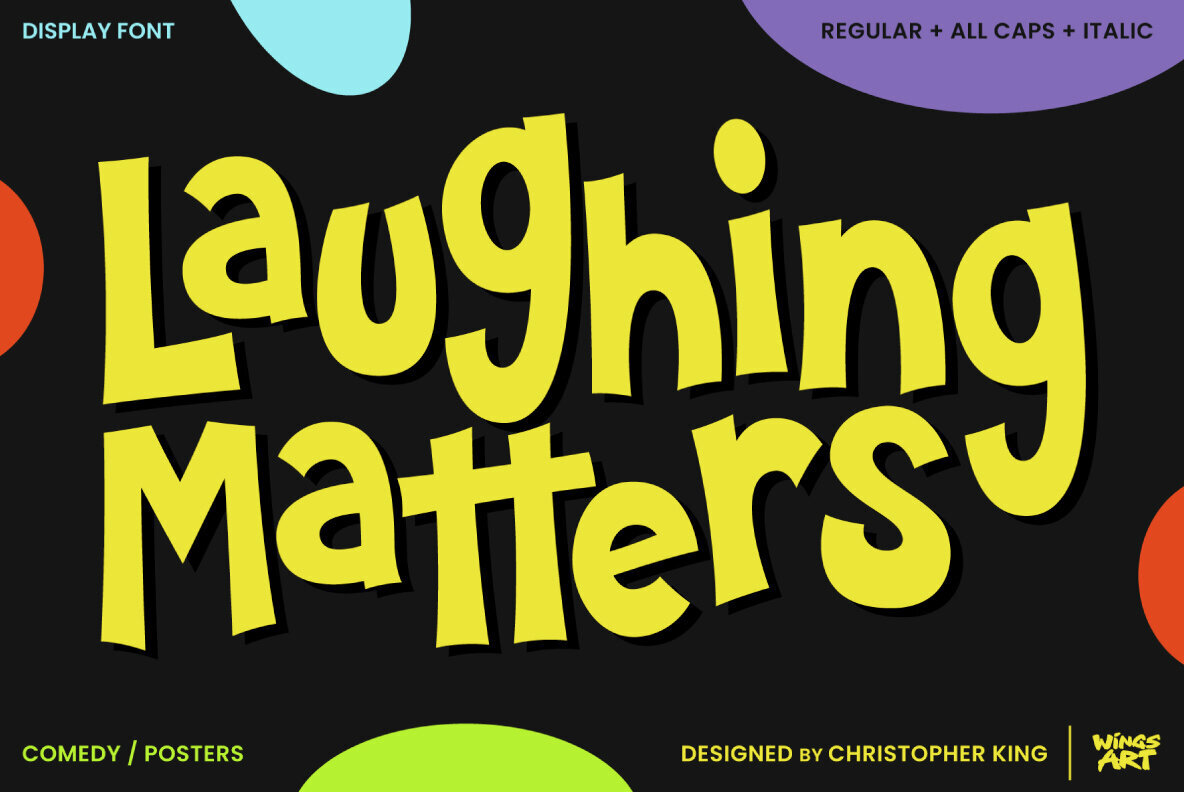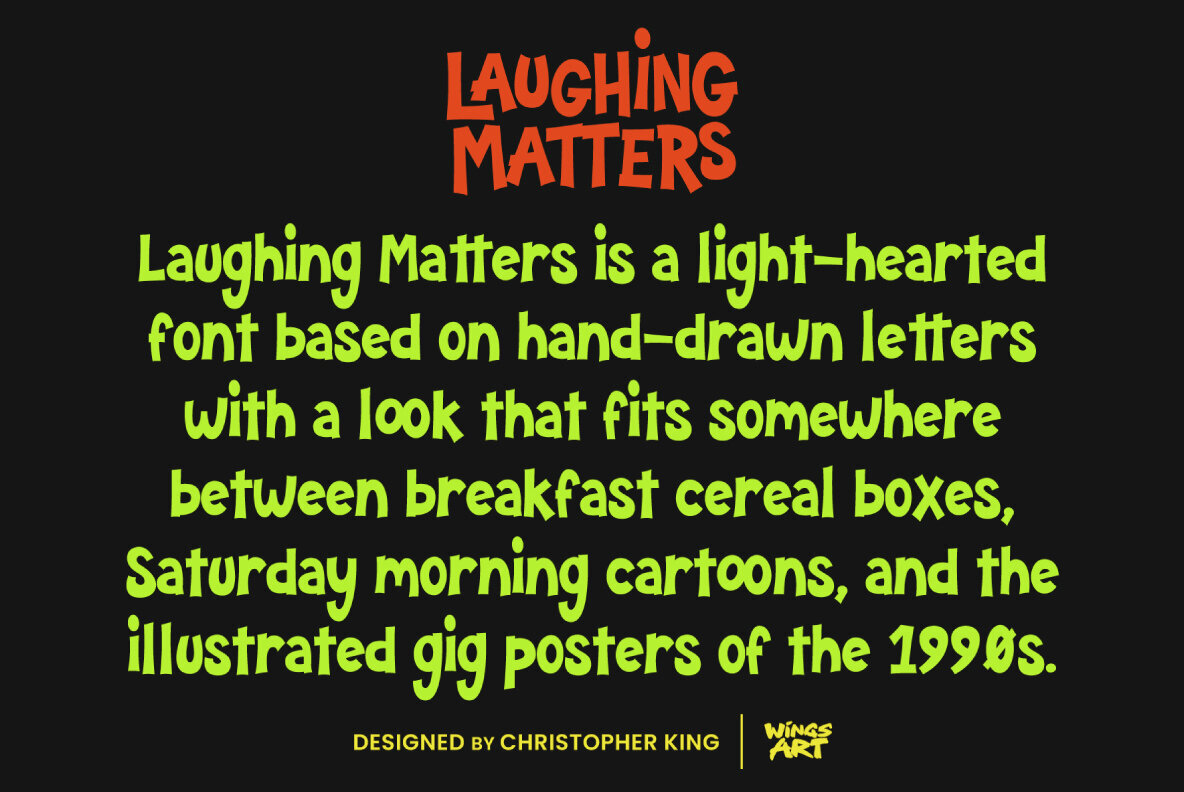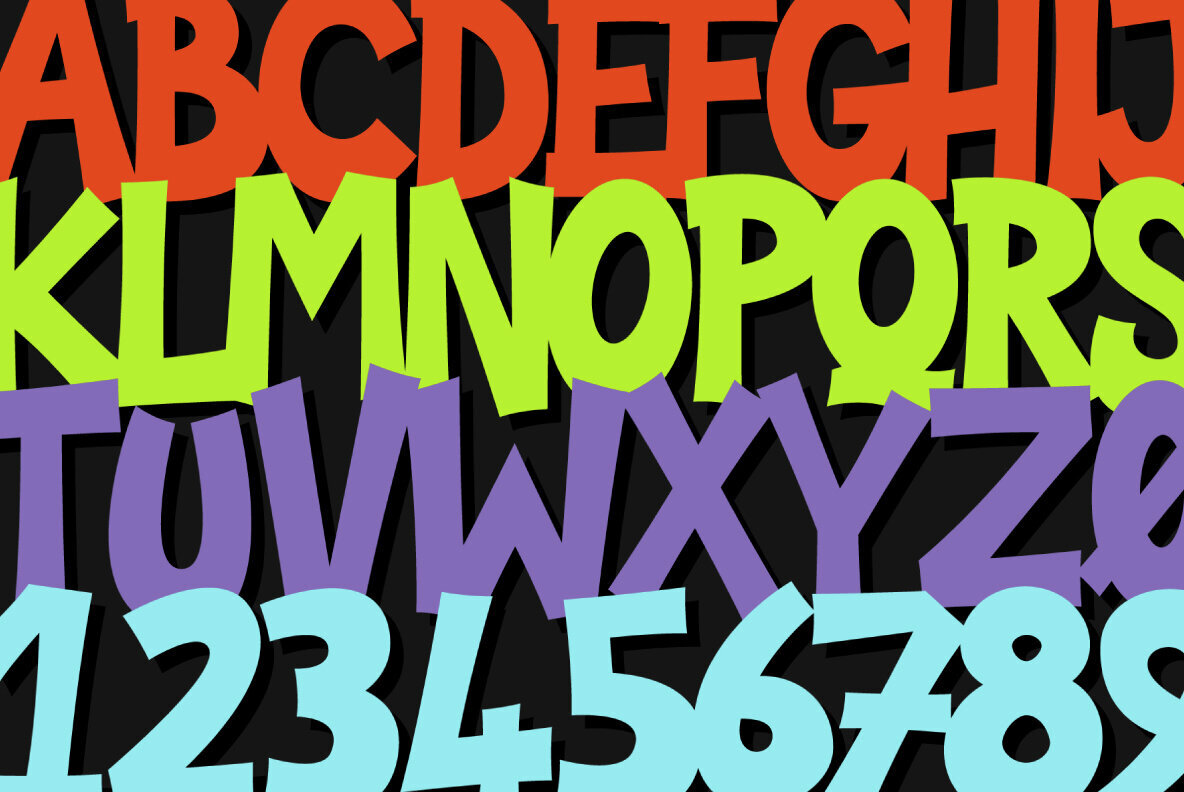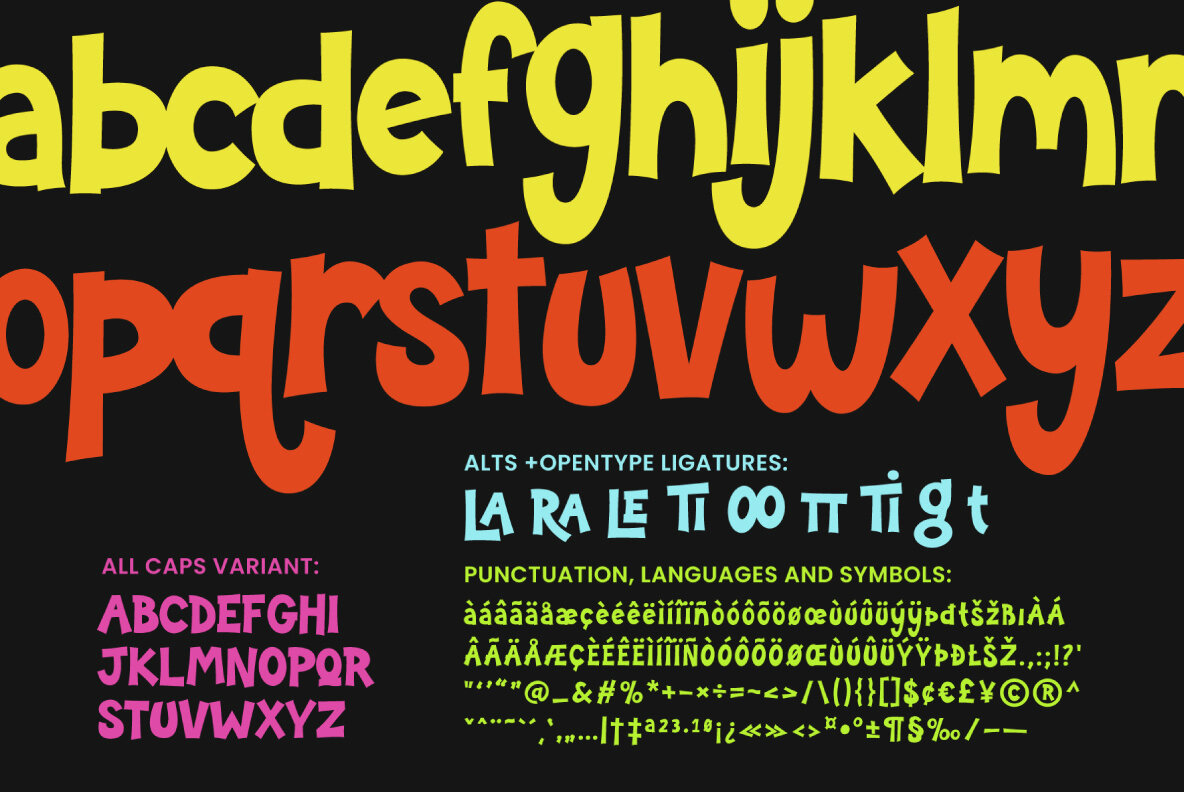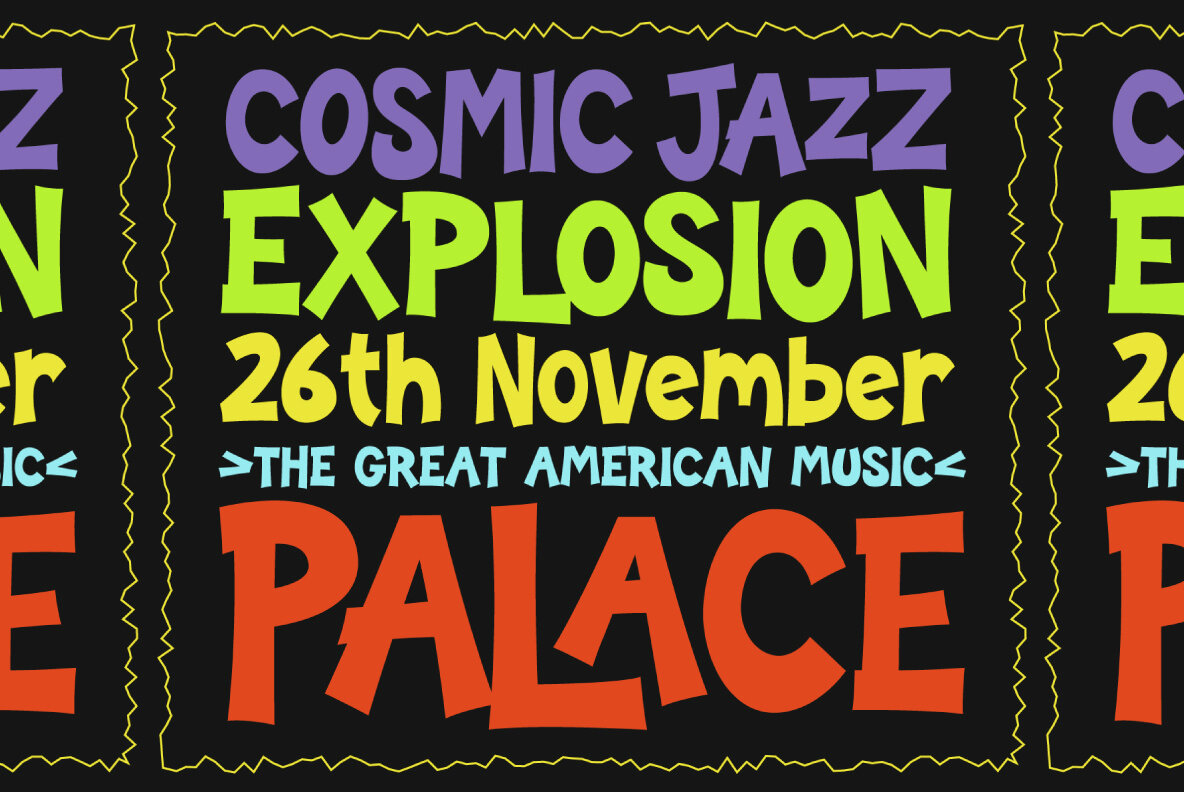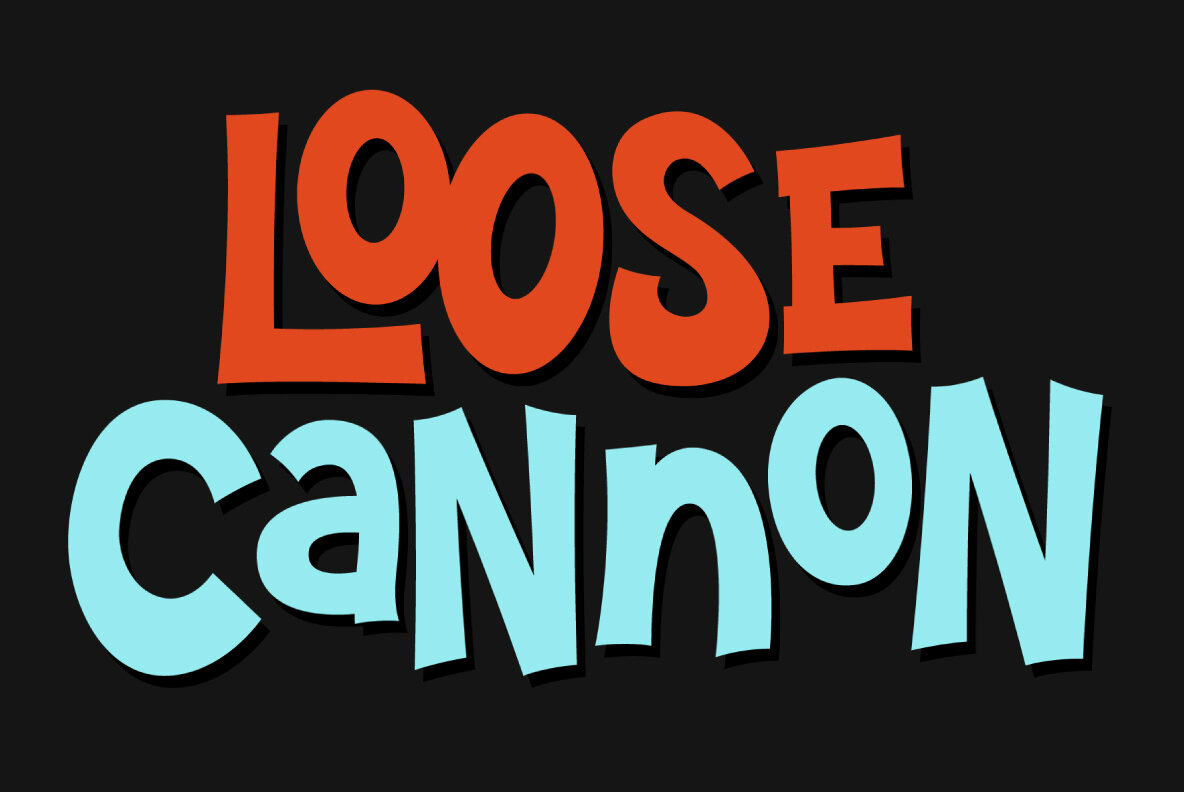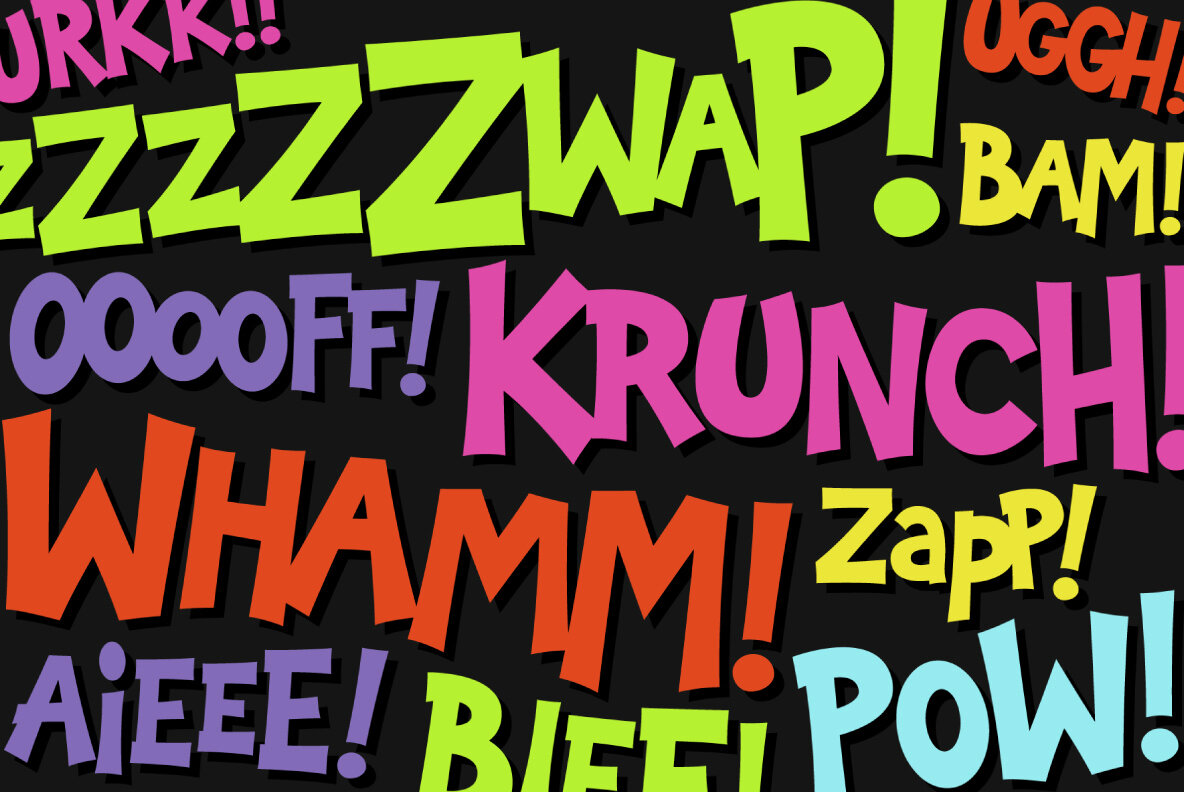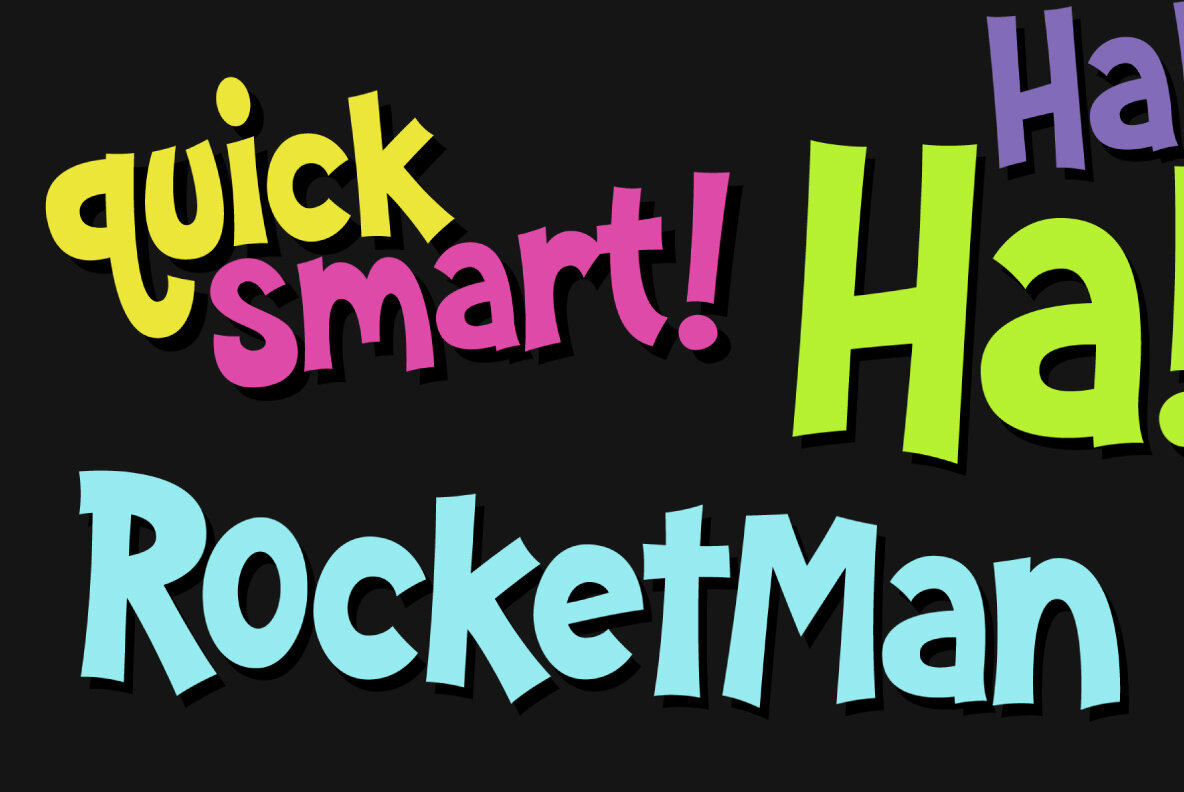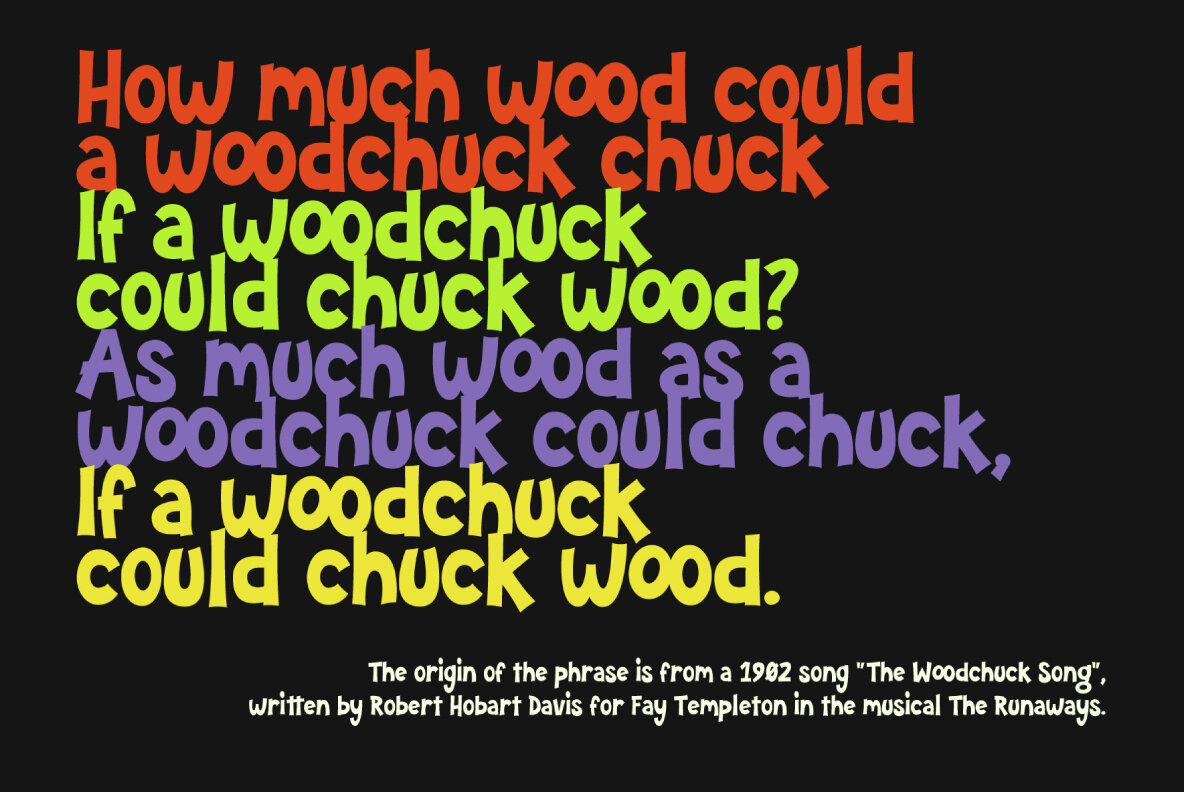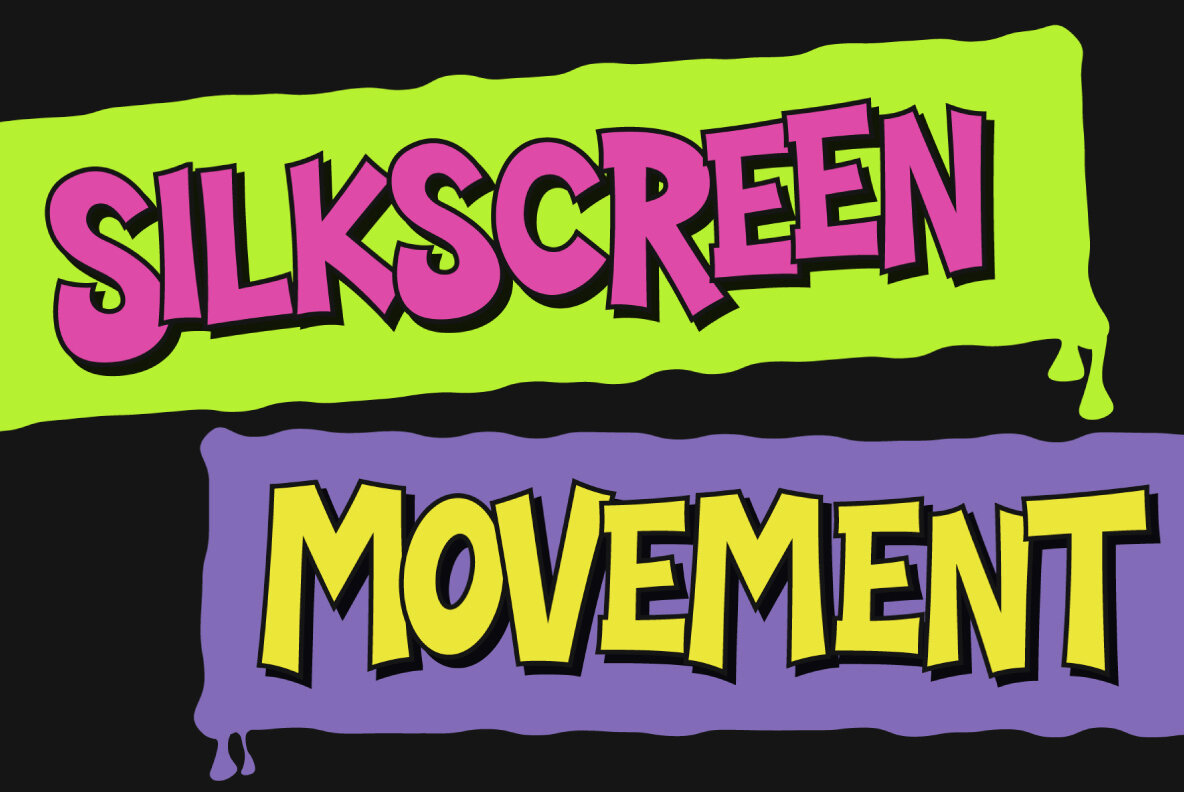
Laughing Matters Font
Laughing Matters Regular
Laughing Matters Italic
Laughing Matters All Caps
Laughing Matters AllCaps Italic
Laughing Matters is a light-hearted font based on hand-drawn letters with a look that fits somewhere between breakfast cereal boxes, Saturday morning cartoons, and the illustrated gig posters of the 1990s. When used in its loose and bouncy lowercase format, it suits projects with a comedic theme leaning into nostalgia, while its uppercase or all-caps variant can feel more modern and punk. It remains legible at large and small display sizes, making it particularly versatile on titles, posters, and packaging designs. The Laughing Matters font includes a regular version with uppercase and lowercase characters, numerals, and multilingual support, plus stylistic alternatives and OpenType ligatures. It also features an all-caps variant with unique upper and lowercase characters, plus italic versions of each. It’s also been carefully designed to be lightweight for web users, whilst retaining high visual impact and customisability. When you need to play the joker, this is a great typographic tool to hide up your sleeve. Enjoy! Laughing Matters Family (V.1) • Regular • All Caps • Italic • Italic All Caps Copyright © 2025 Christopher King | Wingsart Studio